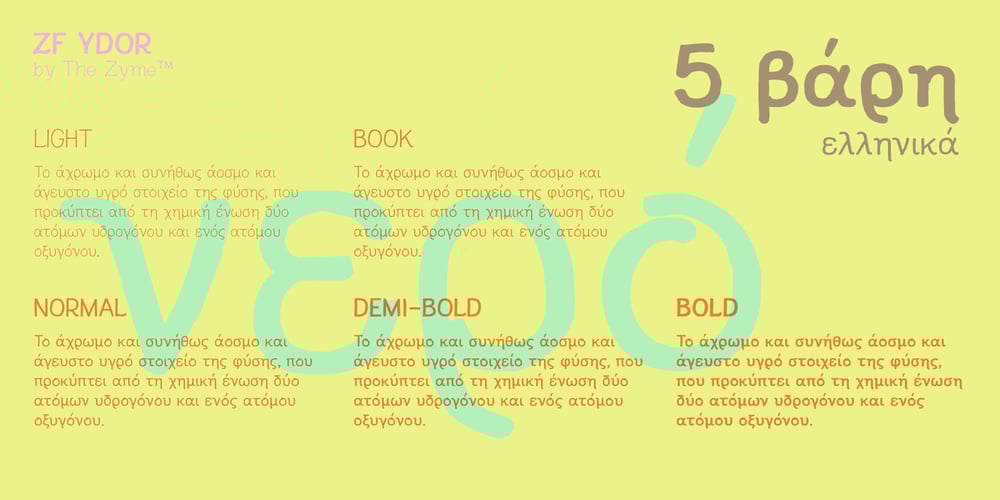
ZF Ydor Font Family was designed by Babis Touglis and published by The Zyme. ZF Ydor contains 5 styles and family package options. ZF Ydor font family has been created to give a crafty, hand drawn look to your project. Its characters have been drawn by hand to give them a warm and authentic look. It was designed as a generic handwritten font; almost a mild handwritten font. The creation of ZF Ydor started for a specific work of our design firm, for which we needed a font that was handwritten, easy to read, and did not seem to be childish or comic, as several handwritten fonts do. ZF Ydor comes in five basic weights, is intended to work best in print materials as well as websites and digital apps, for small family companies, organic products and others. It also feels comfortable with short or large texts, in small and large sizes, due to clear and rounded characters. It supports all Latin language and the Greek too.